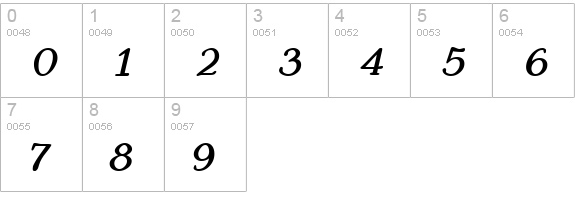
Youbee BoldItalic Font Details
Introducing Youbee BoldItalic, a captivating and stylish font that exudes sophistication and elegance. This unique typeface combines boldness with a touch of italic flair, making it perfect for adding a touch of personality to your designs. The sleek lines and graceful curves of Youbee BoldItalic make it ideal for a wide range of projects, from branding to editorial design. But the best part? Youbee BoldItalic is completely free to download at FontsMarket.com! That's right, you can elevate your designs with this stunning font without spending a dime. Whether you're working on a poster, logo, website, or any other creative project, Youbee BoldItalic will surely make a lasting impression. Don't miss out on this opportunity to enhance your design arsenal with Youbee BoldItalic. Download it now and let your creativity shine with this exceptional font.